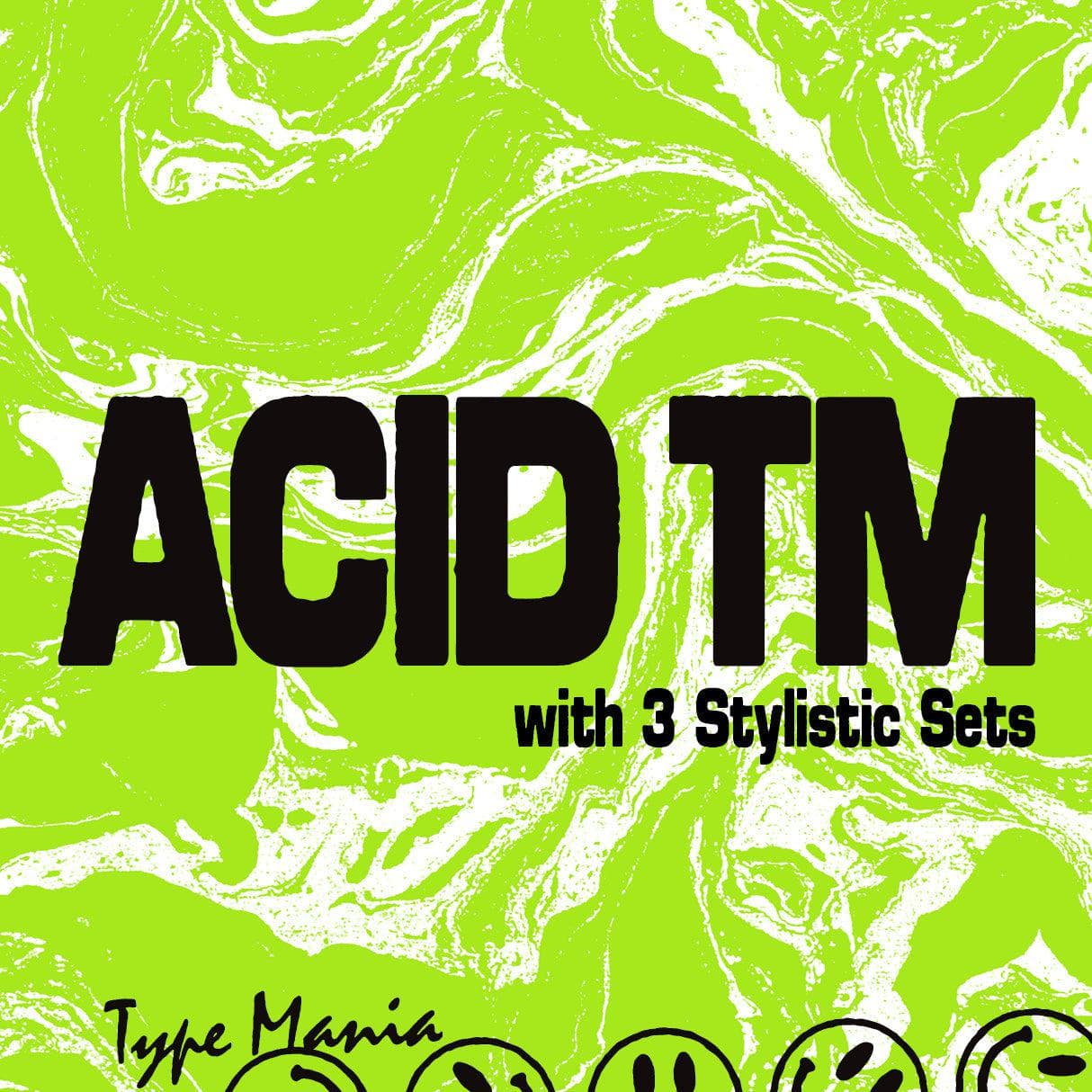
<p><strong>Acid TM</strong> is a rugged geometric sans serif. Perfect for your flyer, record cover or t-shirt design. It includes three stylistic sets of all the essential glyphs, which shift automatically to add character and texture.</p> <p><strong>Zip includes</strong></p> <ul> <li>OTF file</li> <li>TTF file</li> <li>WOFF2 file</li> </ul> <p><strong>OpenType features</strong></p> <ul> <li>3 stylistic sets</li> <li>The font is programmed to automatically shift between the stylistic sets whenever the same glyphs are typed side by side</li> </ul> <p><strong>Languages</strong></p> <ul> <li>Basic Latin</li> <li>Western European</li> <li>Euro</li> <li>Central European</li> <li>Pan African Latin</li> <li>428 glyphs</li> </ul> <p><em>Graphic Design is Easy (with Type Mania)®</em></p>